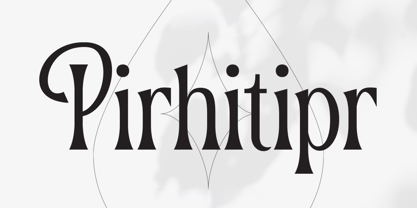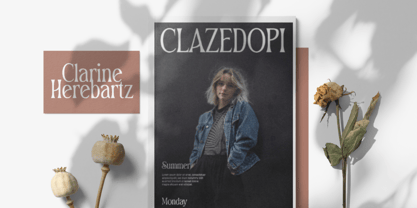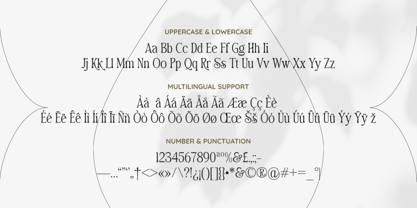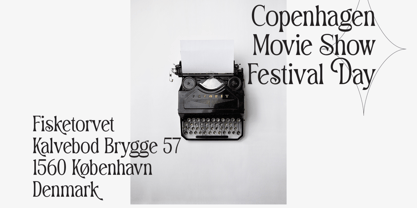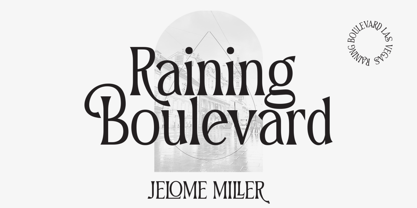
Pirhitipr
Die Schriftfamilie Pirhitipr wurde von Aulia Savira Putri entworfen und von Imoodev veröffentlicht. Pirhitipr enthält 1 Stile. Mehr über diese Familie
Pirhitipr is a display serif that blends classic Didone inspired contrast with expressive ornamental details. Featuring dramatic thick to thin transitions, elongated graceful serifs, this typeface delivers a refined editorial presence with an artistic twist. This font combine vintage romanticism with contemporary luxury, showcasing tall elegant proportions, flowing swashes. Pirhitipr works beautifully in logos, fashion branding, beauty packaging, magazine headlines, wedding stationery, book covers, posters, and luxury inspired visual identities.
Designer: Aulia Savira Putri
Foundry: Imoodev